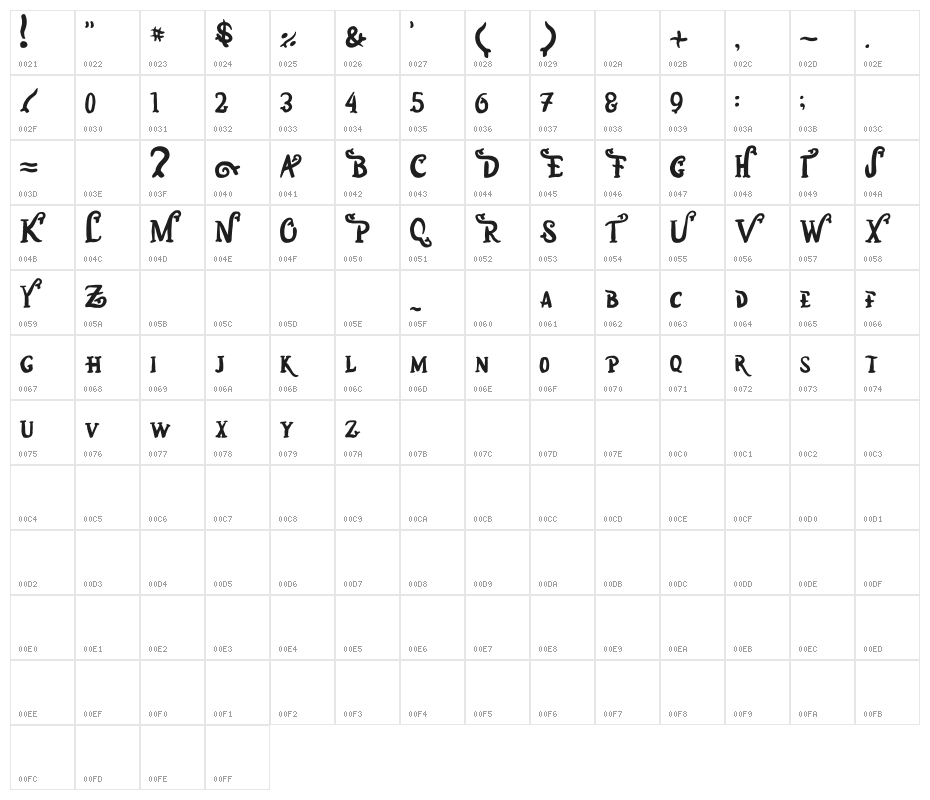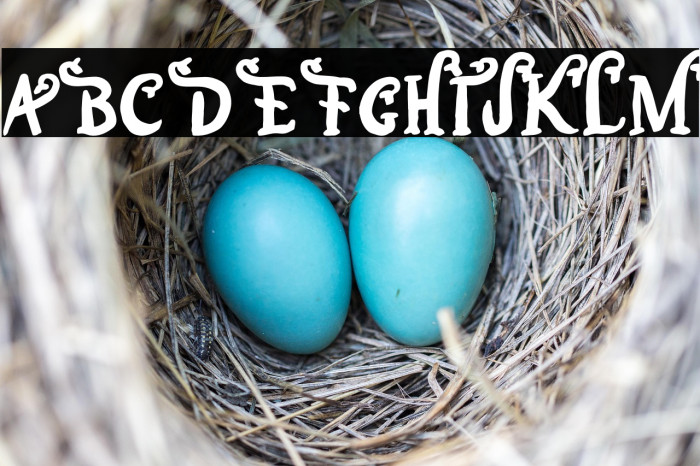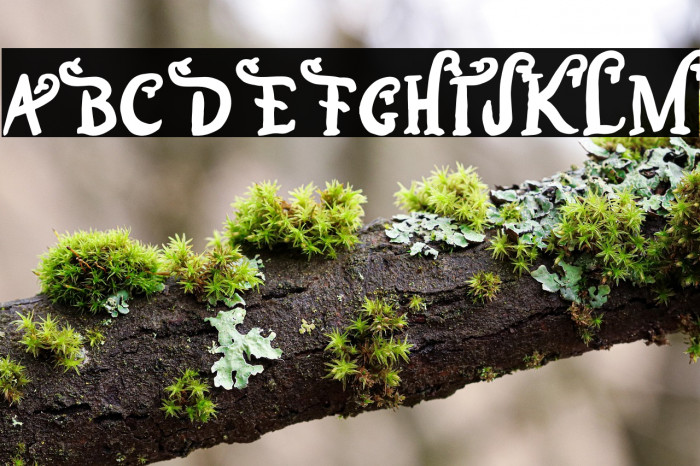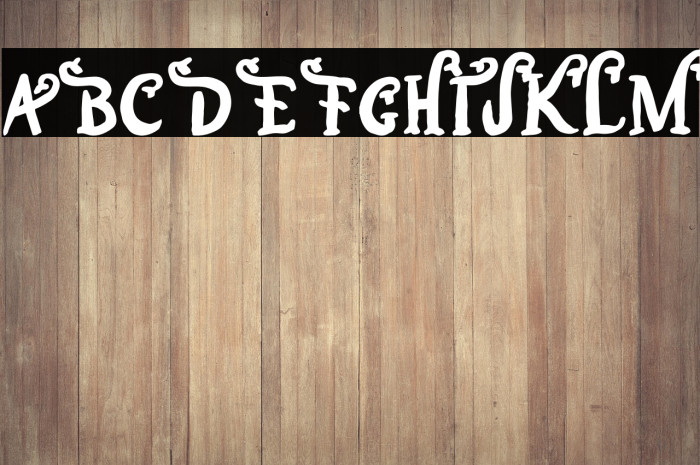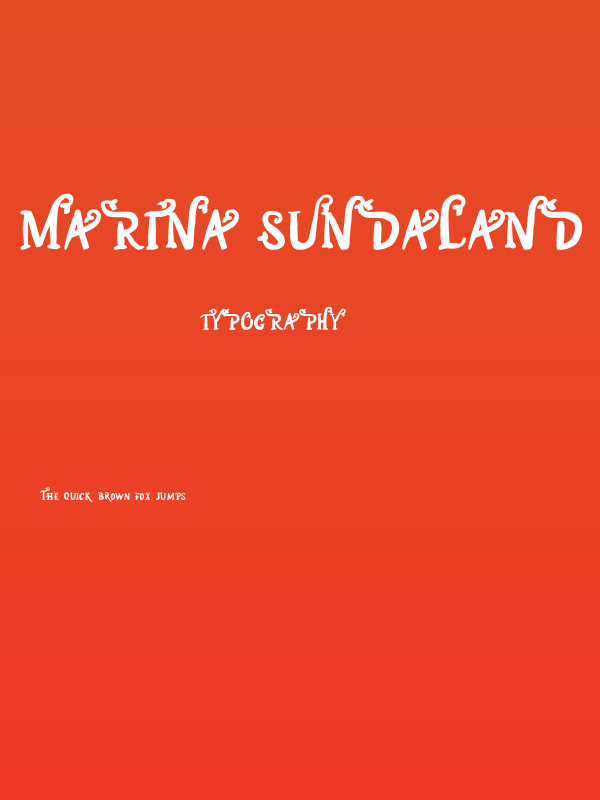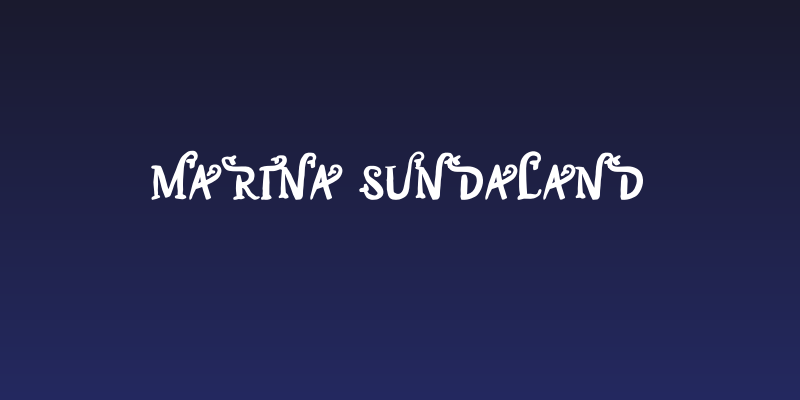
Marina Sundaland Font
Marina Sundaland Description
This font features a bold and playful design with a distinctive, whimsical flair. Each character is crafted with unique curves and flourishes, giving it a lively and dynamic appearance. The uppercase letters are particularly expressive, with exaggerated serifs and decorative elements that add a sense of movement and energy. The lowercase letters maintain this playful style, ensuring consistency across the typeface. The numbers and special characters are equally bold and stylized, making them stand out in any design. This font is perfect for projects that require a touch of creativity and fun.